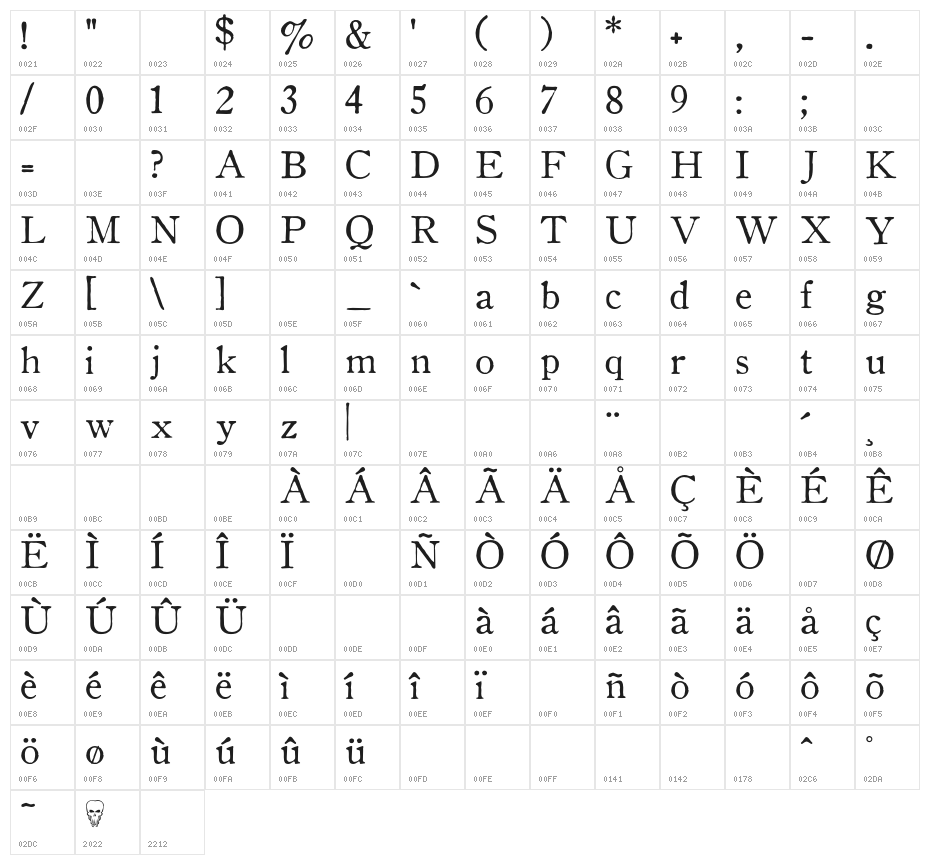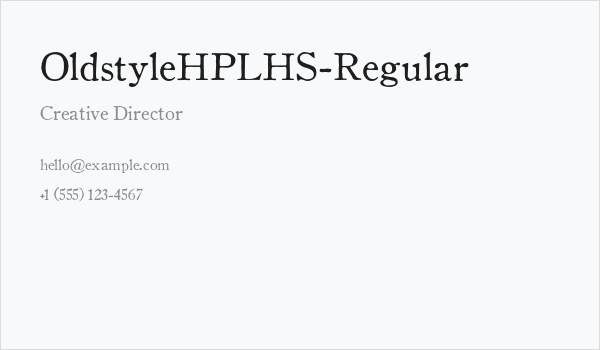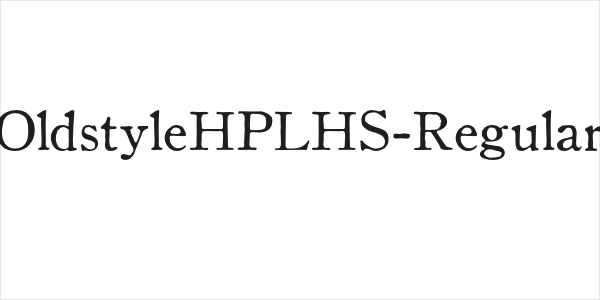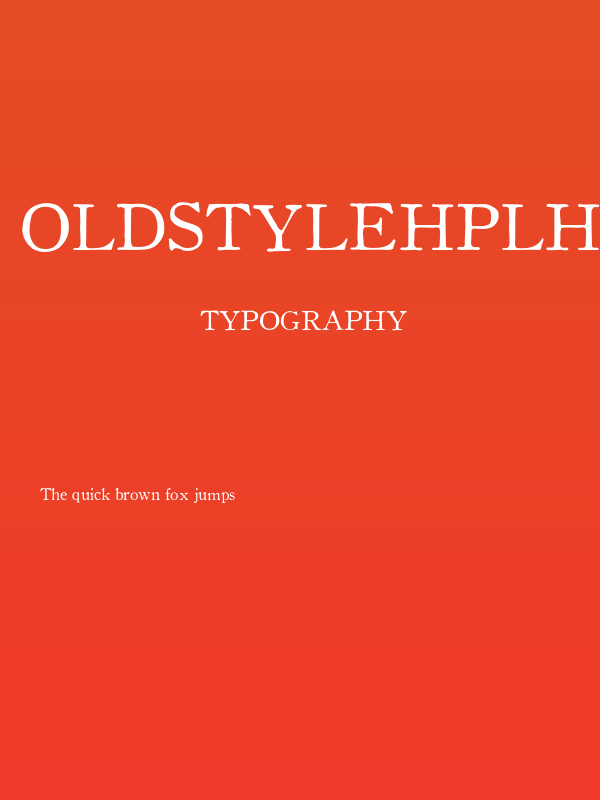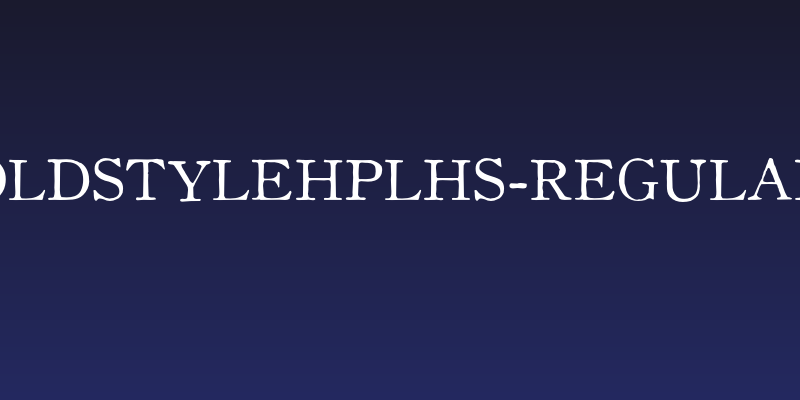
OldstyleHPLHS-Regular Font
OldstyleHPLHS-Regular Description
This font exudes a classic and timeless elegance, characterized by its traditional serif style. The letters have a slightly uneven, hand-crafted appearance, giving them a unique and historical feel. The serifs are pronounced and add a touch of sophistication, while the overall design maintains a sense of readability and clarity. The numerals are distinct and match the old-style aesthetic, making them suitable for vintage-themed projects. The special characters are well-integrated, maintaining the font's cohesive look.
| Proposed Projects | Ideal for historical documents, vintage book covers, classic-themed branding, and elegant invitations. |